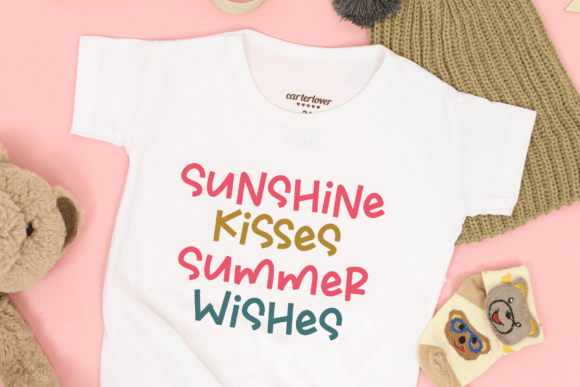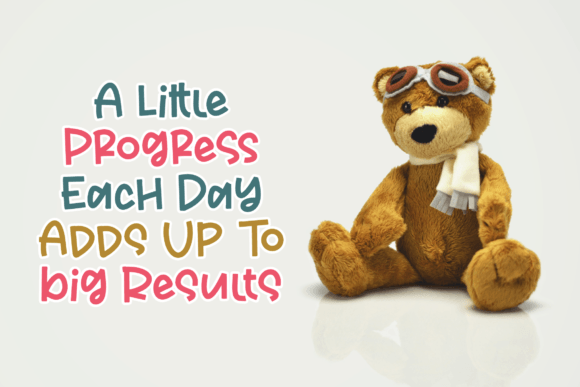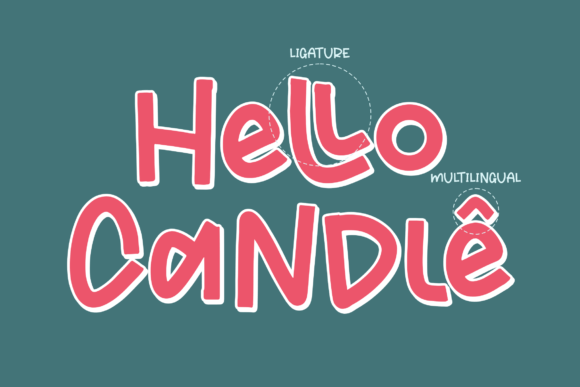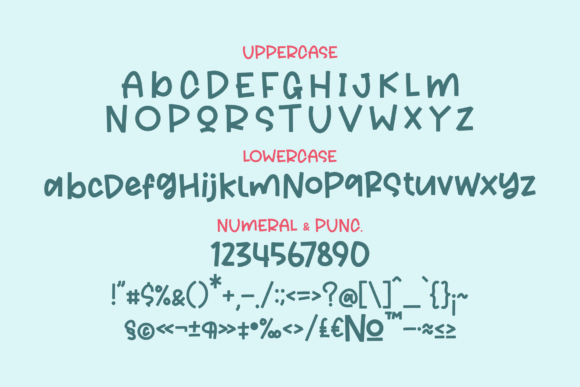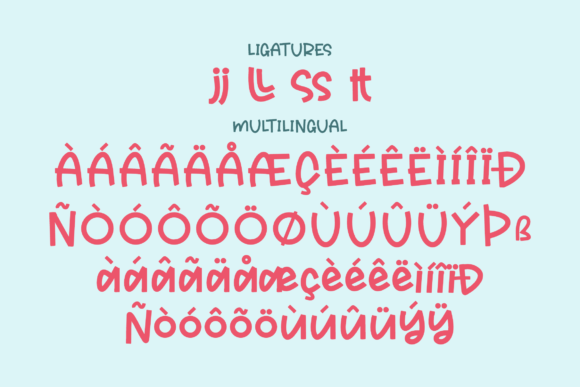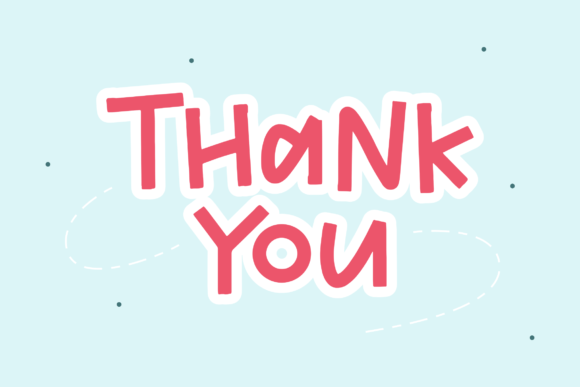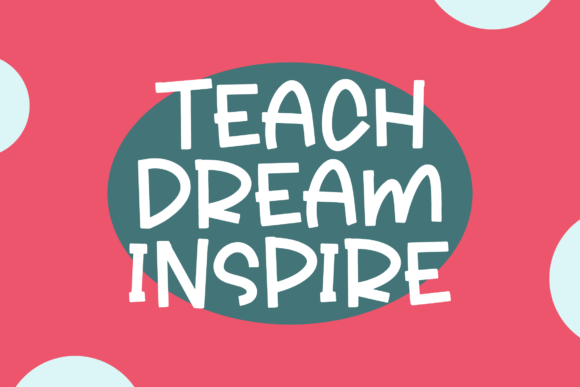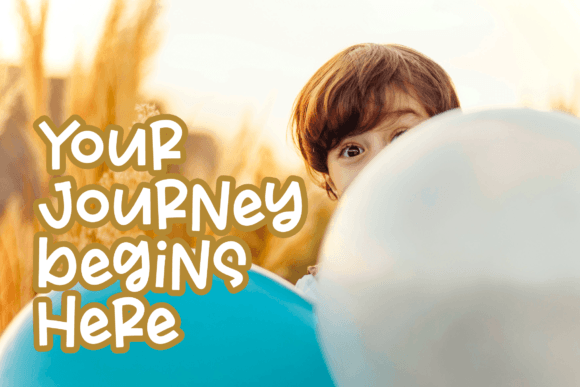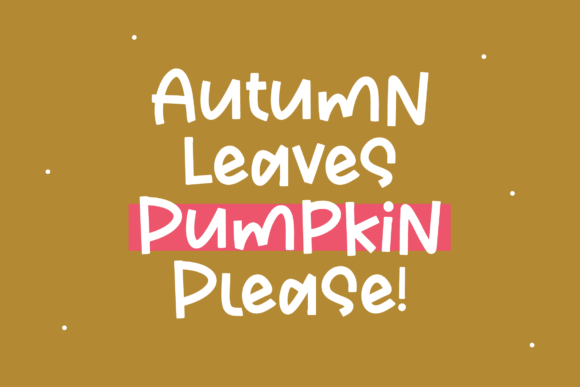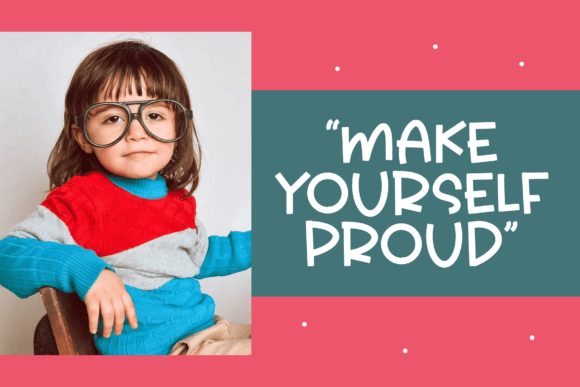
Candle Light Font
About Candle Light Font
“Candle Light” is a quirky handwritten font that adds a playful and unique touch to a variety of projects. Whether you’re working on logos, branding projects, homeware designs, product packaging, mugs, quotes, posters, shopping bags, T-shirts, book covers, name cards, invitation cards, greeting cards, labels, photography, watermarks, special events, or any other creative endeavor, this font is crafted to bring a beautiful script touch to your designs.
The quirky and handwritten style of “Candle Light” sets it apart, making it suitable for projects that require a distinctive and playful vibe. Its versatility allows it to adapt to a wide range of design applications, adding a personalized and artistic element to your work.
Whether you’re designing for digital platforms or print, “Candle Light” is designed to make your projects stand out with its charming and quirky aesthetic. The font’s handwritten nature adds an authentic and creative touch, making it a valuable asset for various creative projects.
In summary, “Candle Light” is more than just a font; it’s a creative tool meticulously crafted to enhance your designs with a quirky and handwritten charm. Let this font be the key to bringing a playful and unique script touch to all your lovely projects.